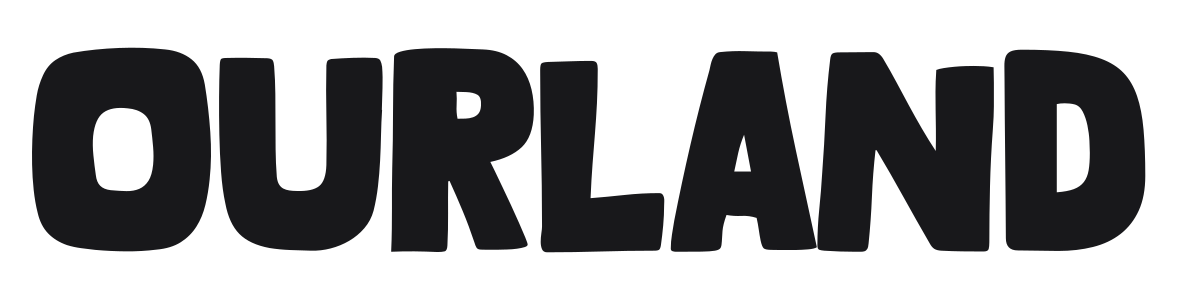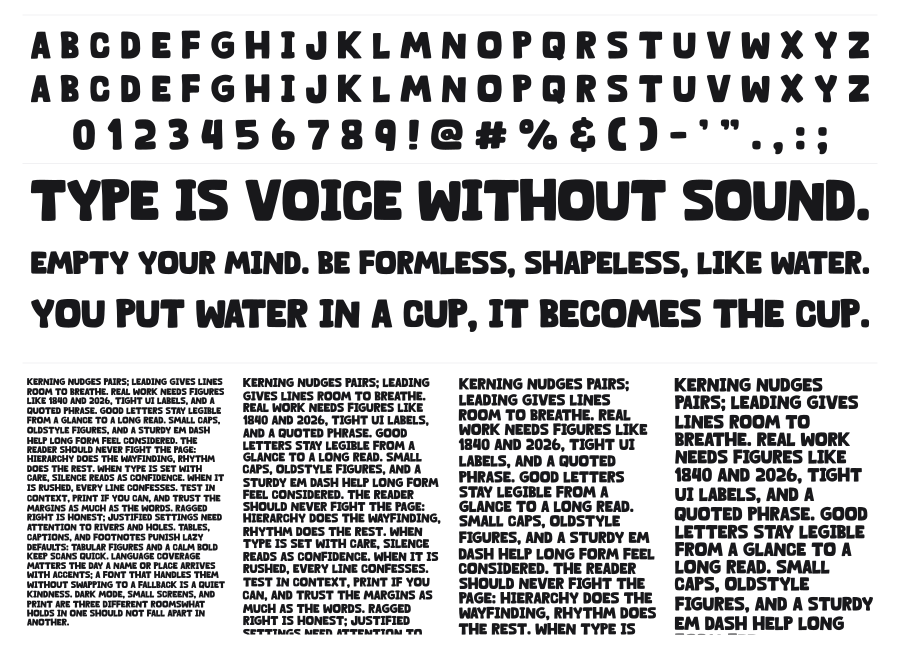
Ourland
Ourland is a heavy, rounded display sans with chunky proportions and a cartoon-like energy. The slightly irregular edges and blocky forms give it an organic warmth that separates it from a plain bold grotesque. Strong for headlines, game titles, posters, and anywhere a design needs a bold, playful punch.